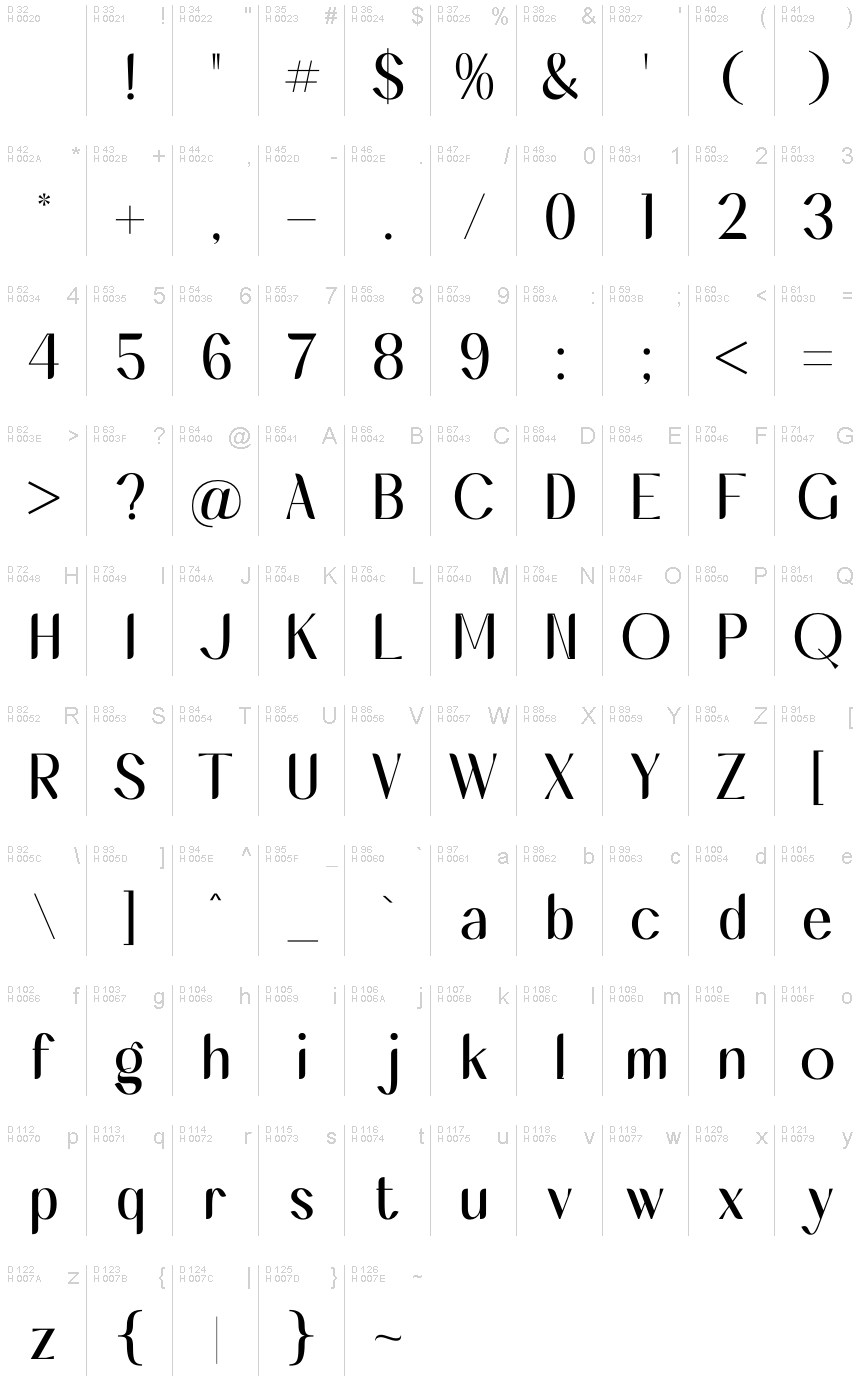
Hegimeda
Hegimeda, crafted by Storytype Studio, commands attention with its bold yet elegant presence. Each character is meticulously designed with a combination of graceful curves and distinctive edges, creating an engaging visual rhythm. The flowing strokes and generous spacing between letters make it effortlessly readable while retaining a sophisticated charm.
Ideal for branding, editorial design, and high-end packaging, Hegimeda’s unique style shines in both headlines and body text. Its refined aesthetics bring a touch of luxury to any project, making it perfect for upscale fashion labels, premium product packaging, or elegant wedding invitations. Hegimeda’s compelling blend of strength and beauty ensures that it stands out in any context where quality and distinction are paramount.